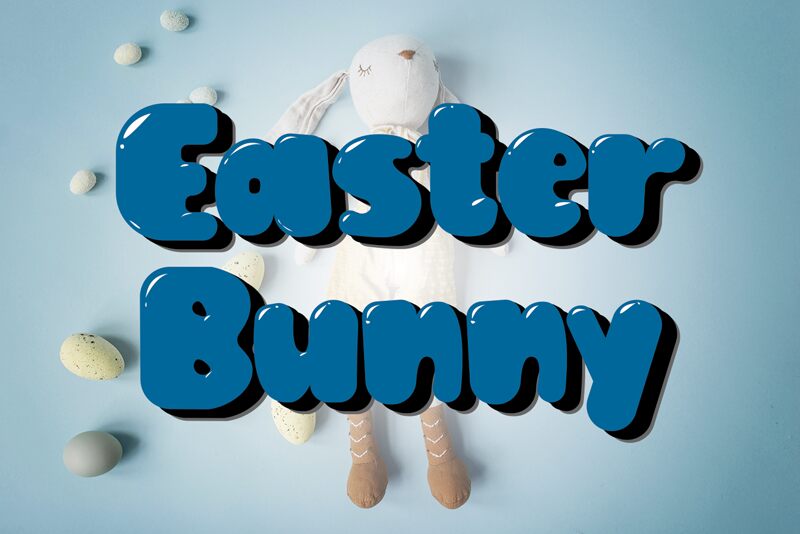
Easter Bunny
Erik Studio
Easter Bunny is a bold and playful display font that exudes a modern vibe. Incorporate this funky font into your creative projects, and watch how it brings them to life!